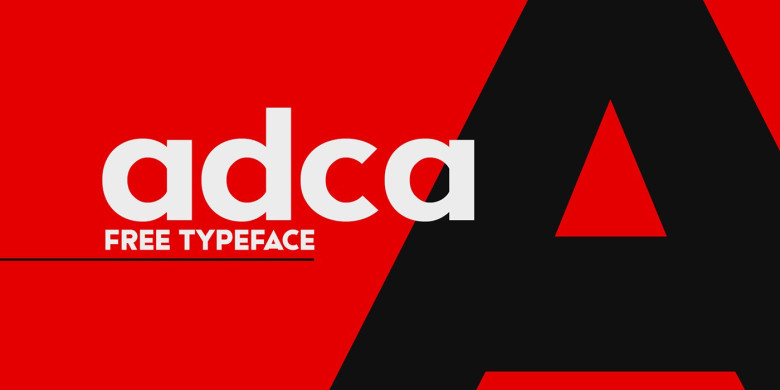
Adca Font
If you’re looking for a bold, unique and striking sans serif, one that will stand out and create recognisable and edgy branding, then Adca is the font for you. lntroducing Adca Font! Adca designed and shared by Adrián Carballo Rojo. Adca is a powerful sans serif, with sturdy lines, juxtaposed with bold yet gentle rounding. Adca is the perfect font for logotypes, signage, branding, apparel, and much more. Its clean lines makes it adaptable for an array of projects.